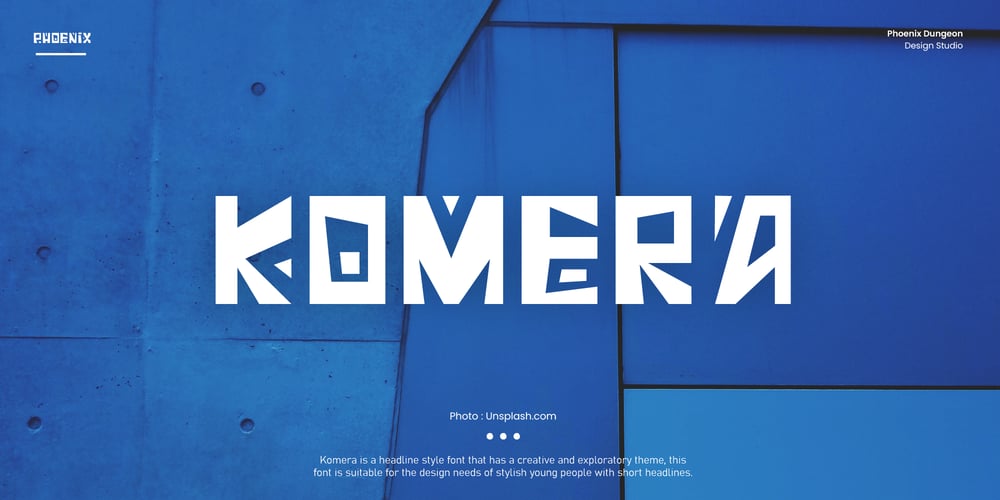
Komera Font Family was designed by Alif Naufal Muzakki and published by Phoenix Group. Komera contains 1 styles and family package options. Komera is a headline style font that has a creative and exploratory theme, this font is suitable for the design needs of stylish young people with short headlines.